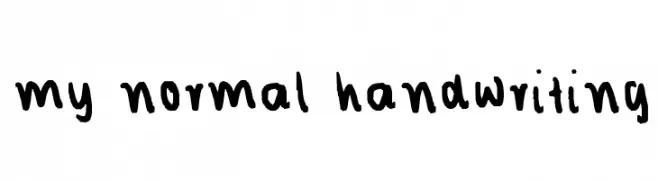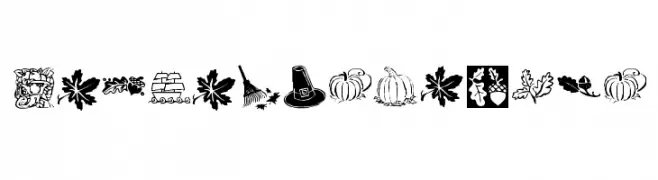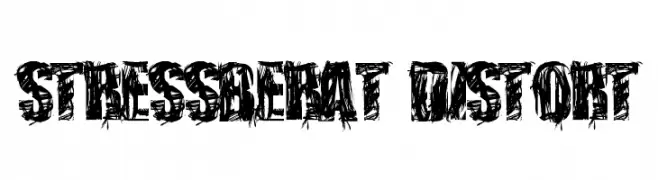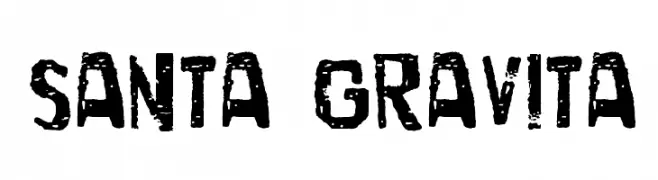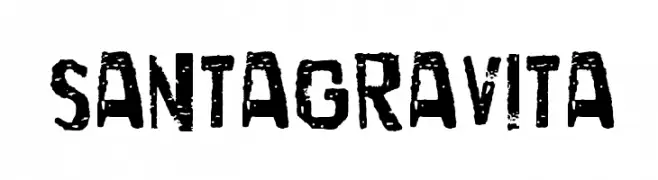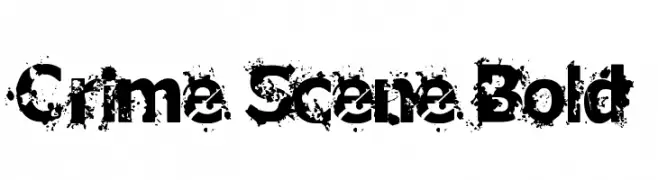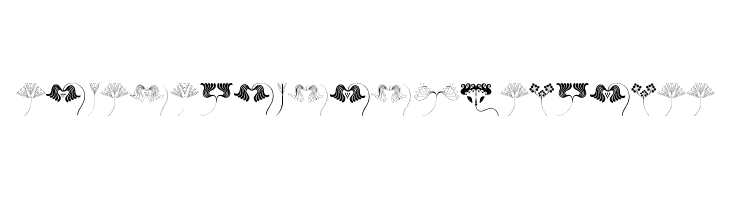
A whimsical, decorative font with playful ink-like patterns.
A bold, distressed font with a grunge texture and rugged appearance.
A decorative dingbat font with harvest-themed icons.
A bold, distressed font with a vintage, rugged texture.
A bold, distressed font with a rugged, vintage feel.
A bold, dynamic font with thick strokes and a slight slant, perfect for impactful statements.
A playful, comic-style font with bold, chunky letters and a humorous touch.